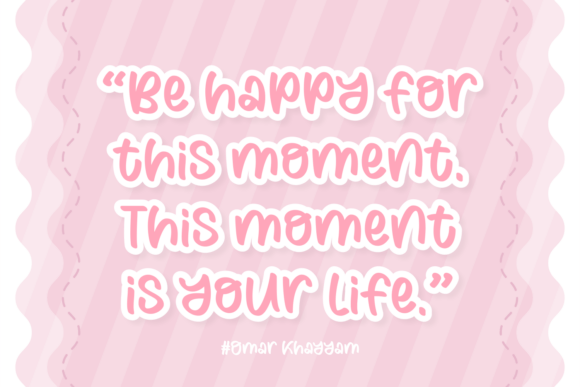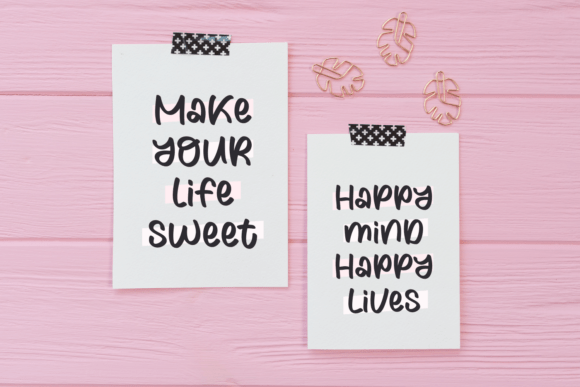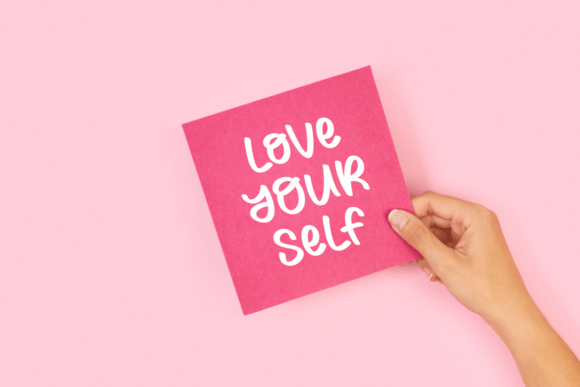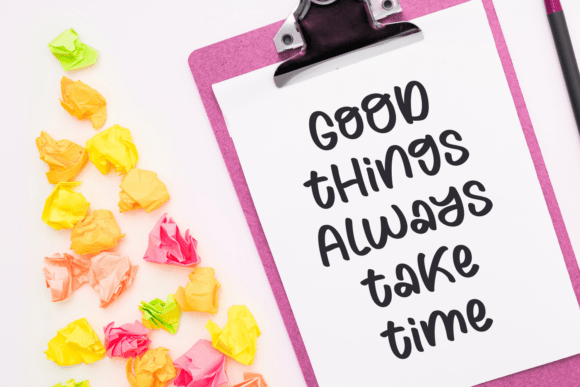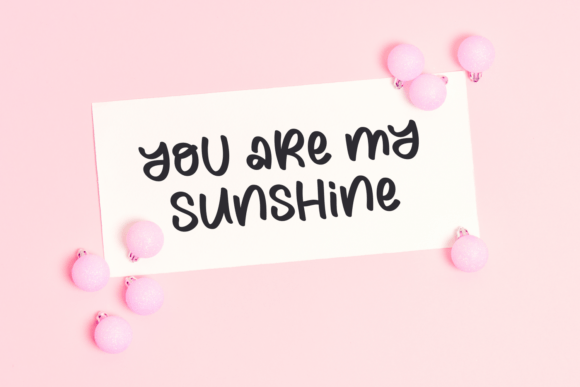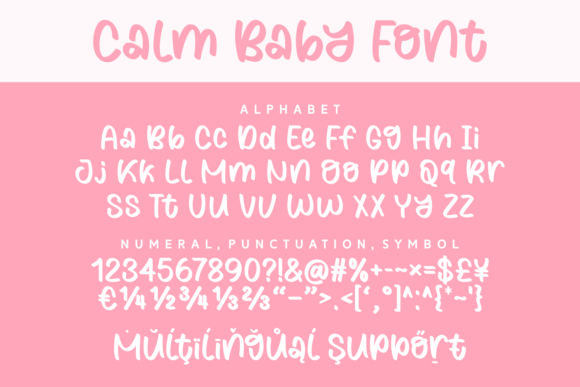
Introducing Calm Baby Font: Where Creativity Meets Elegance
Do you remember that moment when you stumbled upon the perfect font for your design project, and everything just clicked? It’s a feeling that’s hard to describe, but it’s a rush of excitement and a sense of accomplishment that keeps you going. For designers, finding the right font can make all the difference between a good design and a great one. That’s where the Calm Baby Font comes in – a delightful blend of display, cute, and beauty that’s sure to elevate your projects.
The Calm Baby Font is a versatile typography that’s perfect for a wide range of applications, from social media posts to branding, and from quotes to book covers. Its hand-drawn and craft aesthetics give it an authentic, heart-warming feel that’s sure to captivate your audience. With its clean and trendy style, combined with its engaging cursive qualities, the Calm Baby Font is a valuable addition to any designer’s toolkit.
Calm Baby Font Key Features
- Font Family: Calm Baby, a child-friendly sans-serif typeface designed for readability and comfort.
- Unique Characteristics: Distinctive rounded edges and gentle curves, creating a soothing and calming effect, ideal for children’s products, education, and healthcare.
Calm Baby Font Review
I recently had the chance to work with the Calm Baby Font, and here’s my honest take on it.
✨ The font is indeed very calming and soothing, which makes it perfect for designs related to babies, nurseries, or even stress relief. The rounded edges and soft curves create a sense of warmth and comfort.
✨ The font is highly legible, even at smaller font sizes. This makes it suitable for various applications, from product labels to children’s books.
⚠️ The font might be too cursive for some designers, which can make it difficult to read in certain contexts. Additionally, the font lacks a bold weight, which can limit its use in headlines or titles.
⚠️ The font’s versatility is also somewhat limited due to its calm and soothing nature. It might not be the best choice for designs that require a more energetic or playful tone.
Overall, the Calm Baby Font is a great choice for designers who want to create a soothing and calming atmosphere in their designs. While it may have some limitations, its unique character and high legibility make it a great addition to any font collection.
Recommendation
For best results, use the Calm Baby Font in contexts where a calming atmosphere is desired. Pair it with a more energetic font for contrast, and avoid using it in headlines or titles where a bold weight is required.
- Highly legible and easy to read
- Rounded edges and soft curves create a calming atmosphere
- Perfect for designs related to babies, nurseries, or stress relief
- Lacks a bold weight and may be too cursive for some designers
- May not be suitable for energetic or playful designs
Calm Baby Font: A Practical Application Guide
Getting the Most Out of Calm Baby Font
To get the most out of Calm Baby Font, use it in conjunction with calming colors and imagery.
Also, experiment with different font sizes and styles to create a visually appealing design.
Calm Baby Font is ideal for:
Children’s book illustrations
Baby product packaging
Children’s educational materials
Alternatives to Calm Baby Font
Lato is a modern sans-serif font designed for digital media. It is a great alternative to Calm Baby Font when you need a clean and minimalist look. Lato is highly legible and works well in various applications, including headlines, body text, and UI elements.
Comparison to Calm Baby Font: Lato is more modern and sleek, while Calm Baby Font has a more rounded and childlike feel. Lato is also more versatile and can be used in a wider range of applications.